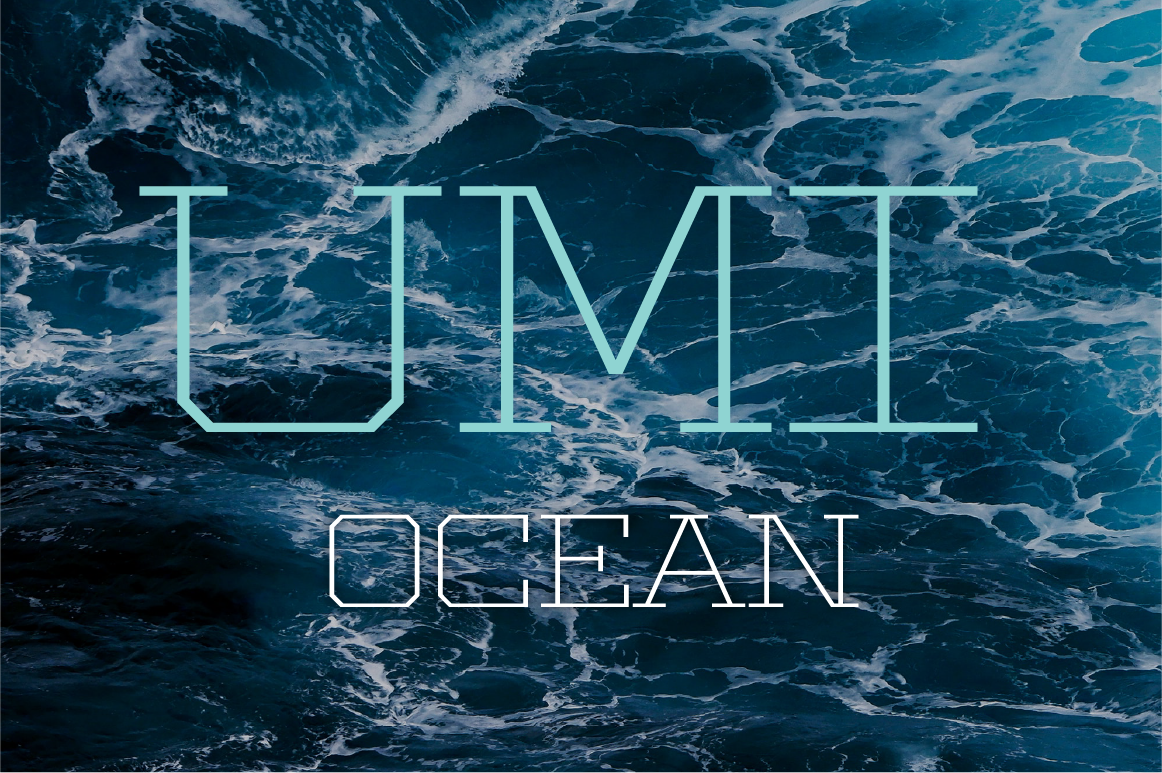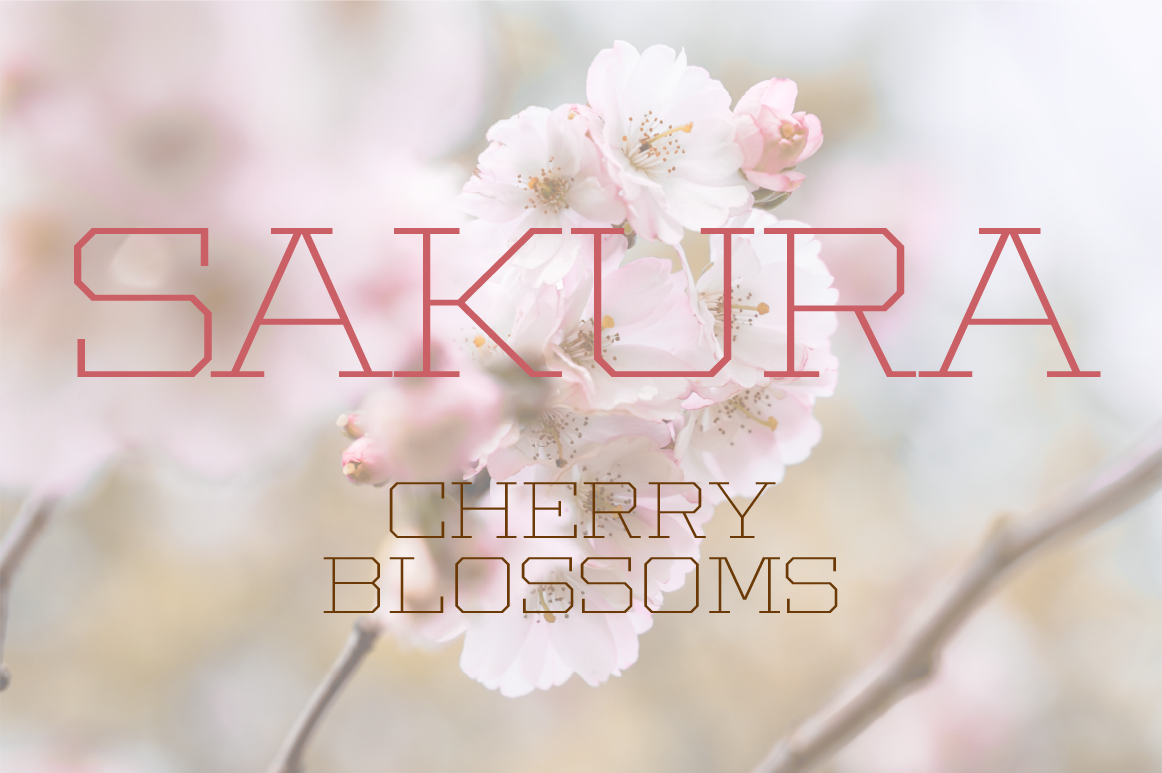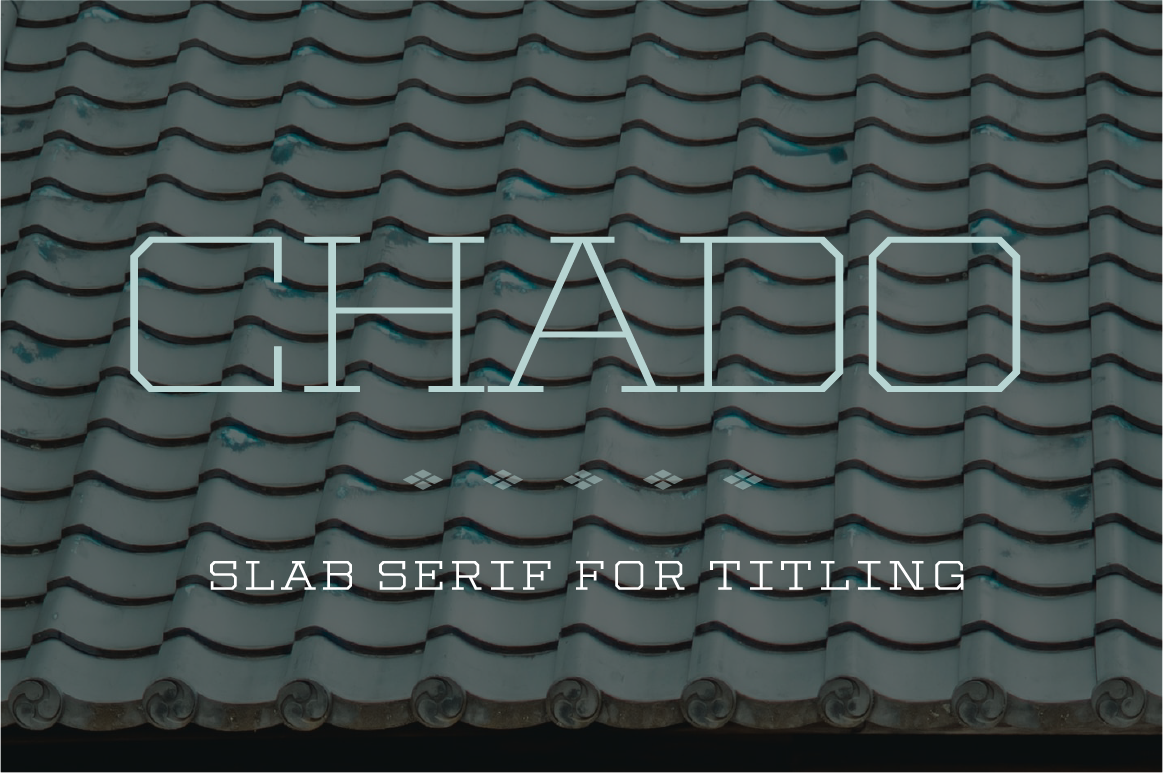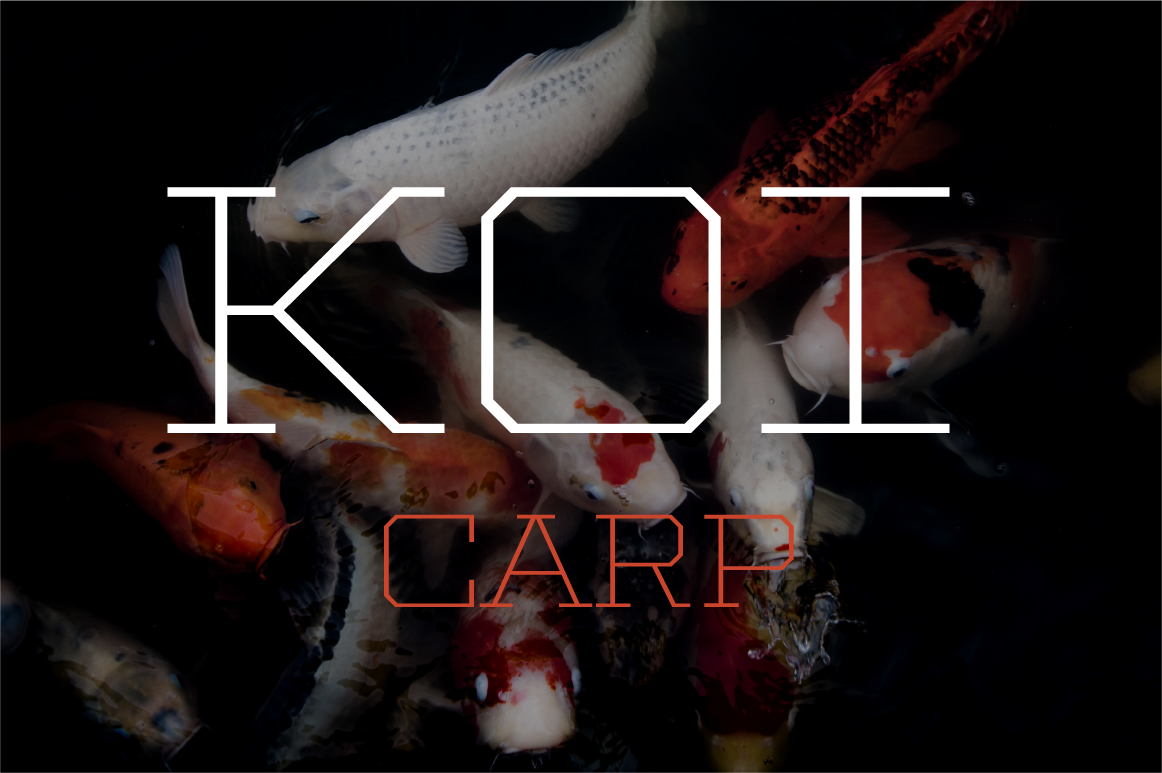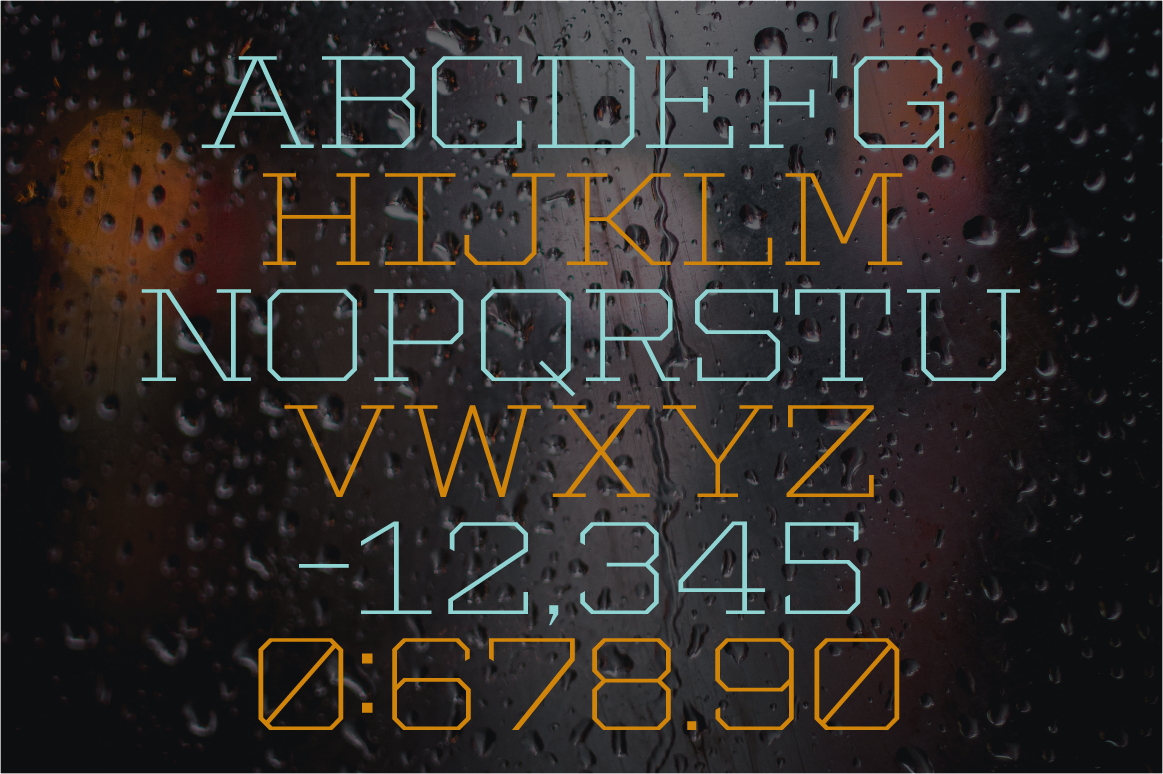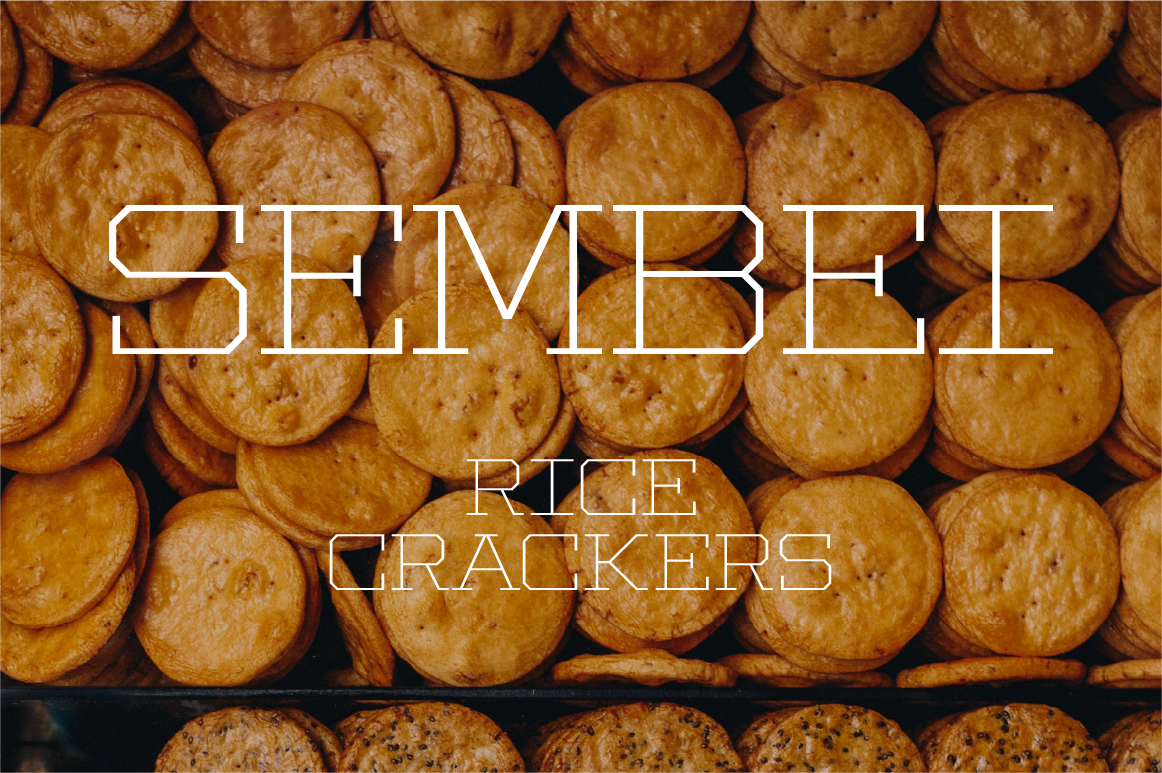
Chado was initially created as a companion font to Chaya and shares many of the same characteristics. Chado has an elegant simplicity and strong presence that make it perfect for titling.